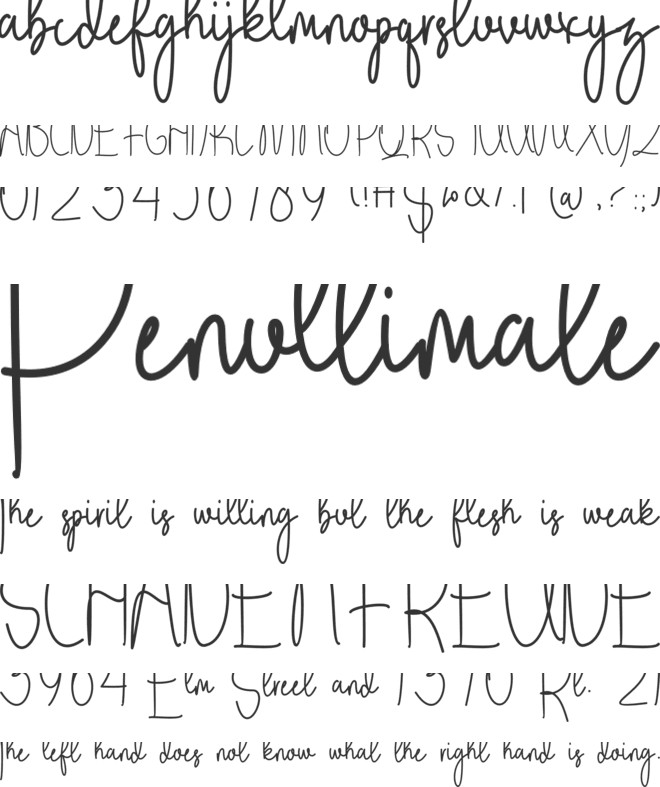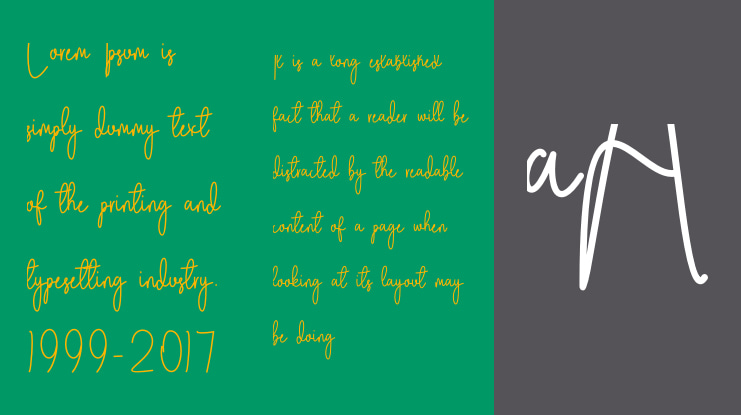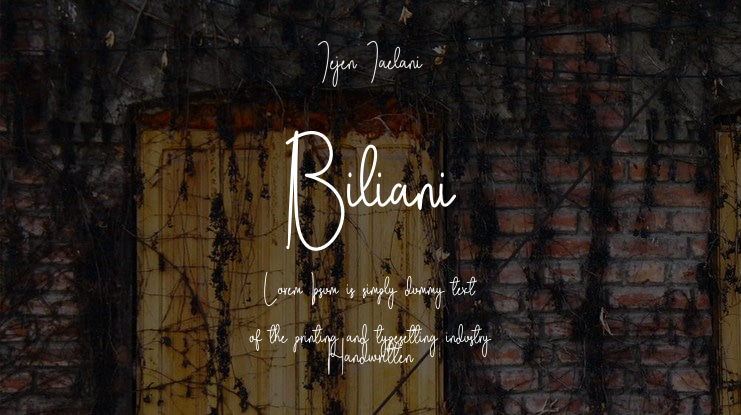
Biliani Font
Introducing "Biliani" is an elegant and flowing script font that exudes sophistication and charm. Inspired by modern calligraphy, Biliani features smooth, sweeping curves and beautifully balanced letterforms, making it perfect for branding, wedding invitations, product packaging, and signature-style logos. Each character is crafted with graceful strokes that mimic the fluidity of handwritten ink, delivering a personal yet refined feel. With its combination of stylish flair and legibility, Biliani adds a luxurious touch to any design project.
-Numeral and Punctuation
-Multilingual Support
-Initial an Final Lowercase